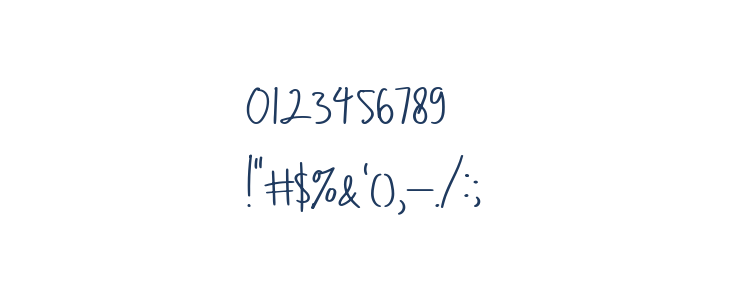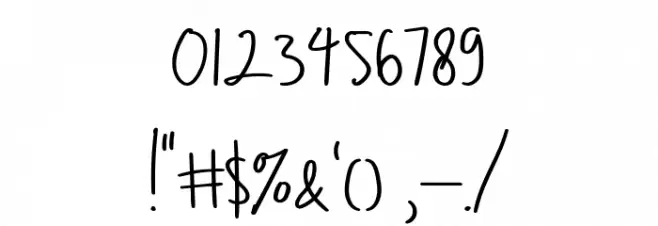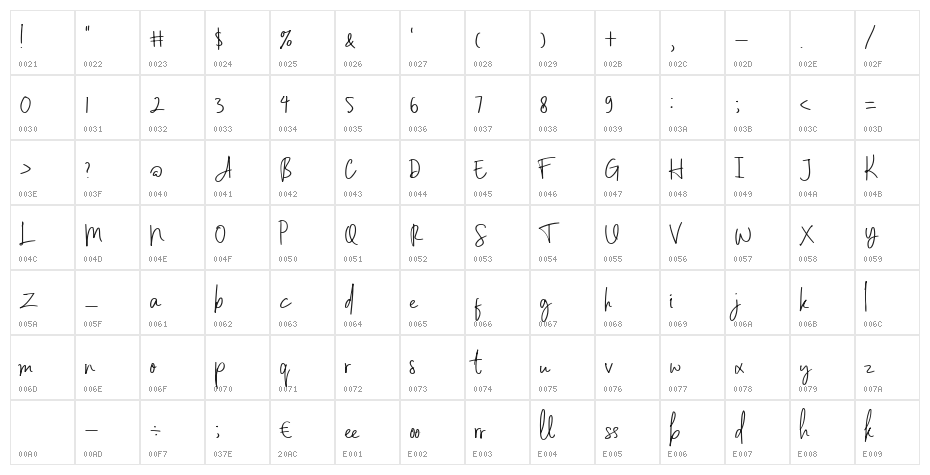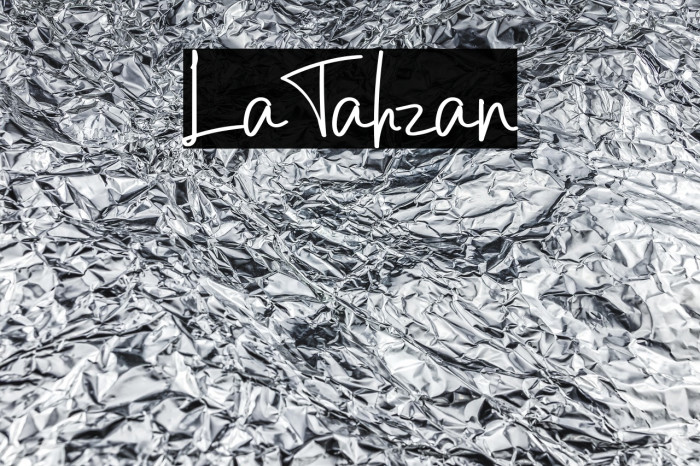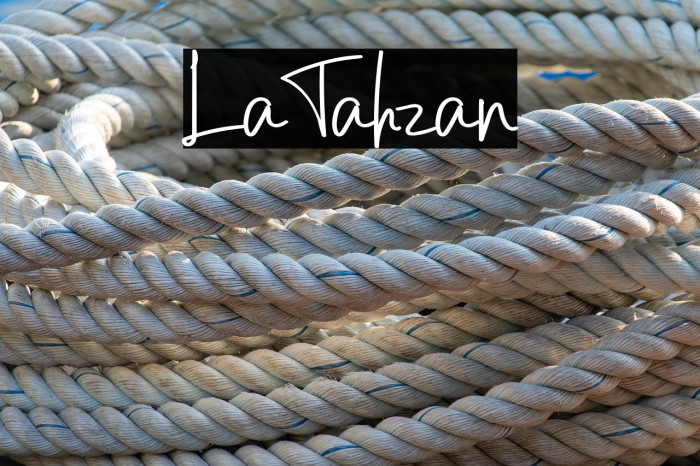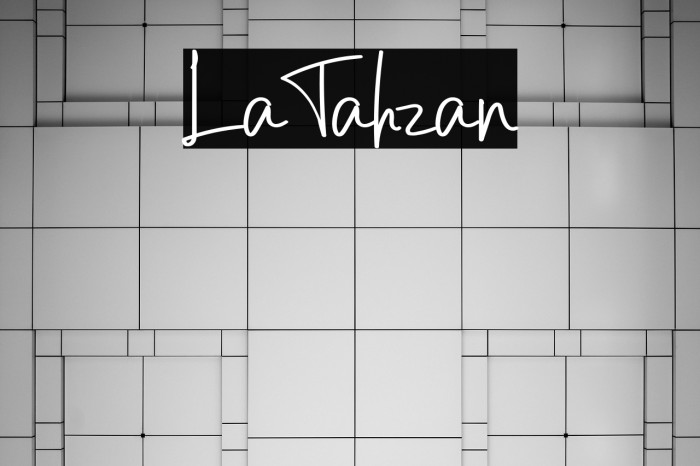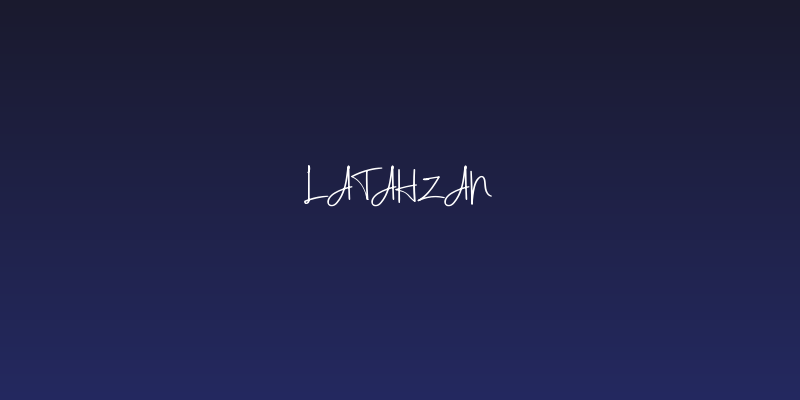
LaTahzan Font
LaTahzan Description
This font features a playful and casual handwritten style, characterized by its fluid and organic strokes. The letters are slightly slanted, giving it a dynamic and informal appearance. The uppercase and lowercase letters maintain a consistent flow, with rounded edges and varying stroke widths that add to its handwritten charm. The numerals and special characters are designed to complement the alphabet, maintaining the same lively and approachable aesthetic. This font is perfect for projects that require a personal touch or a relaxed vibe.
A playful, casual handwritten font with fluid strokes and a dynamic appearance from Uncategorized fonts.
- Proposed Projects: Ideal for greeting cards, personal branding, social media graphics, and informal invitations.
- Overall Style: Casual, Playful
- Use Case: Logos, Headlines, Informal Text